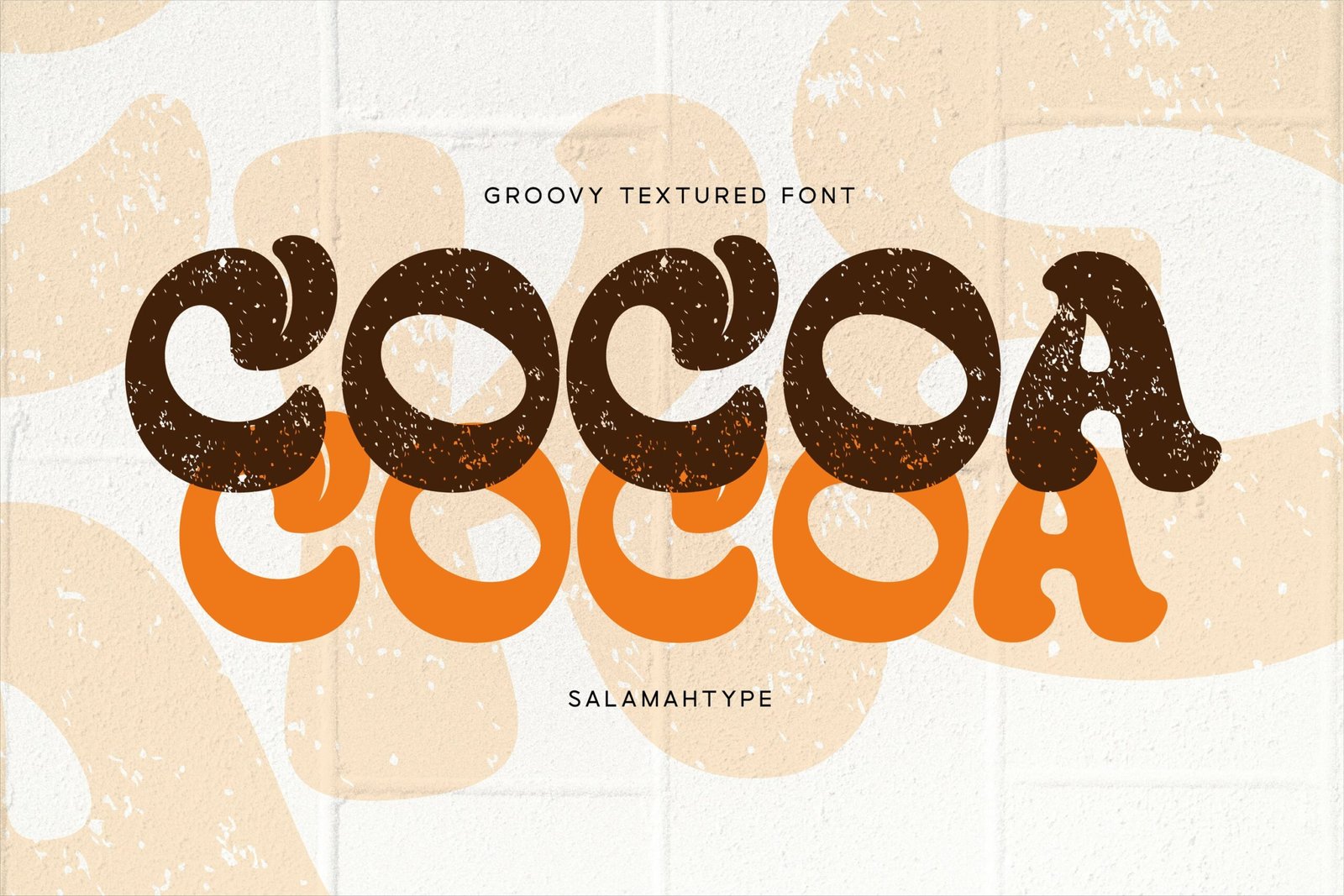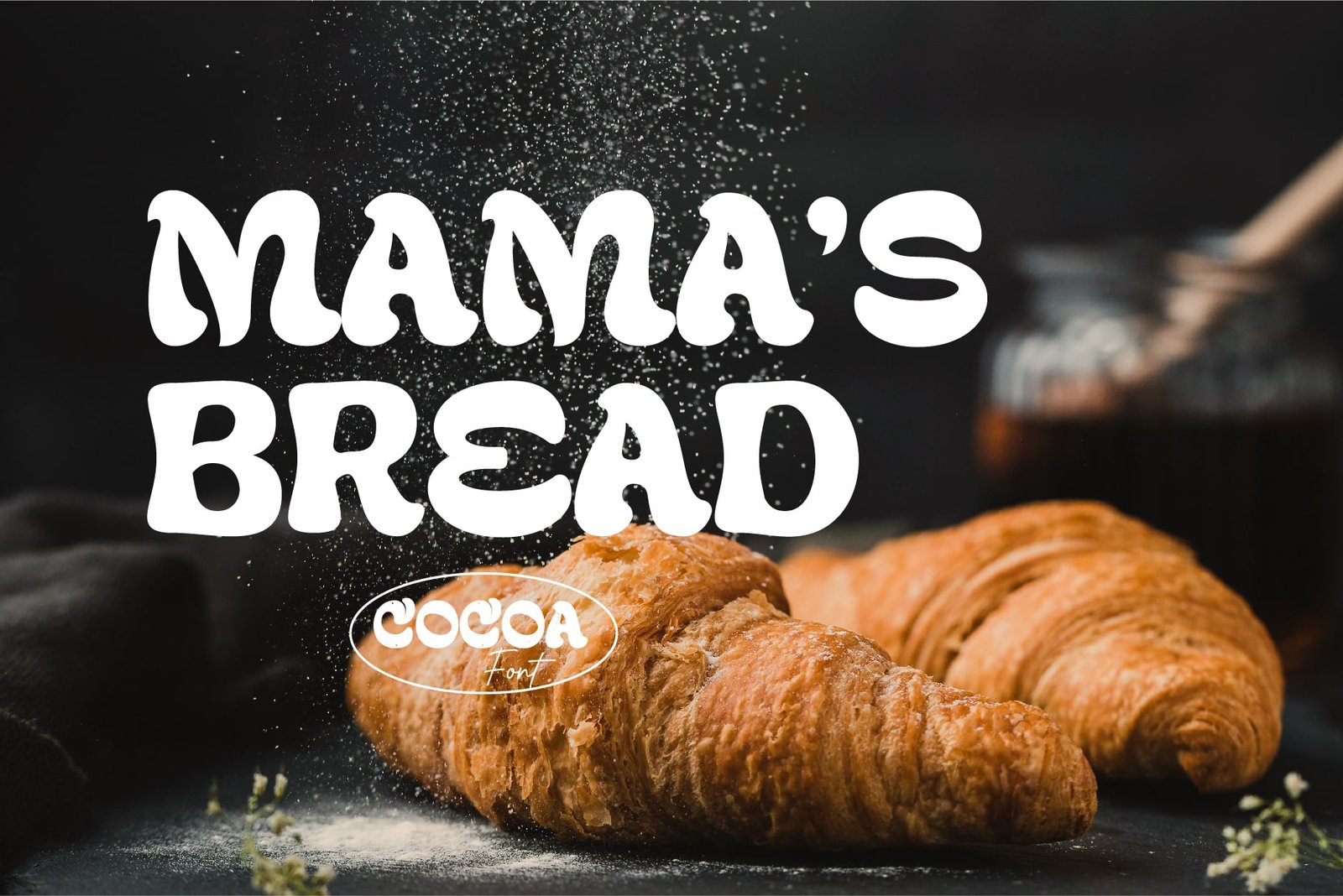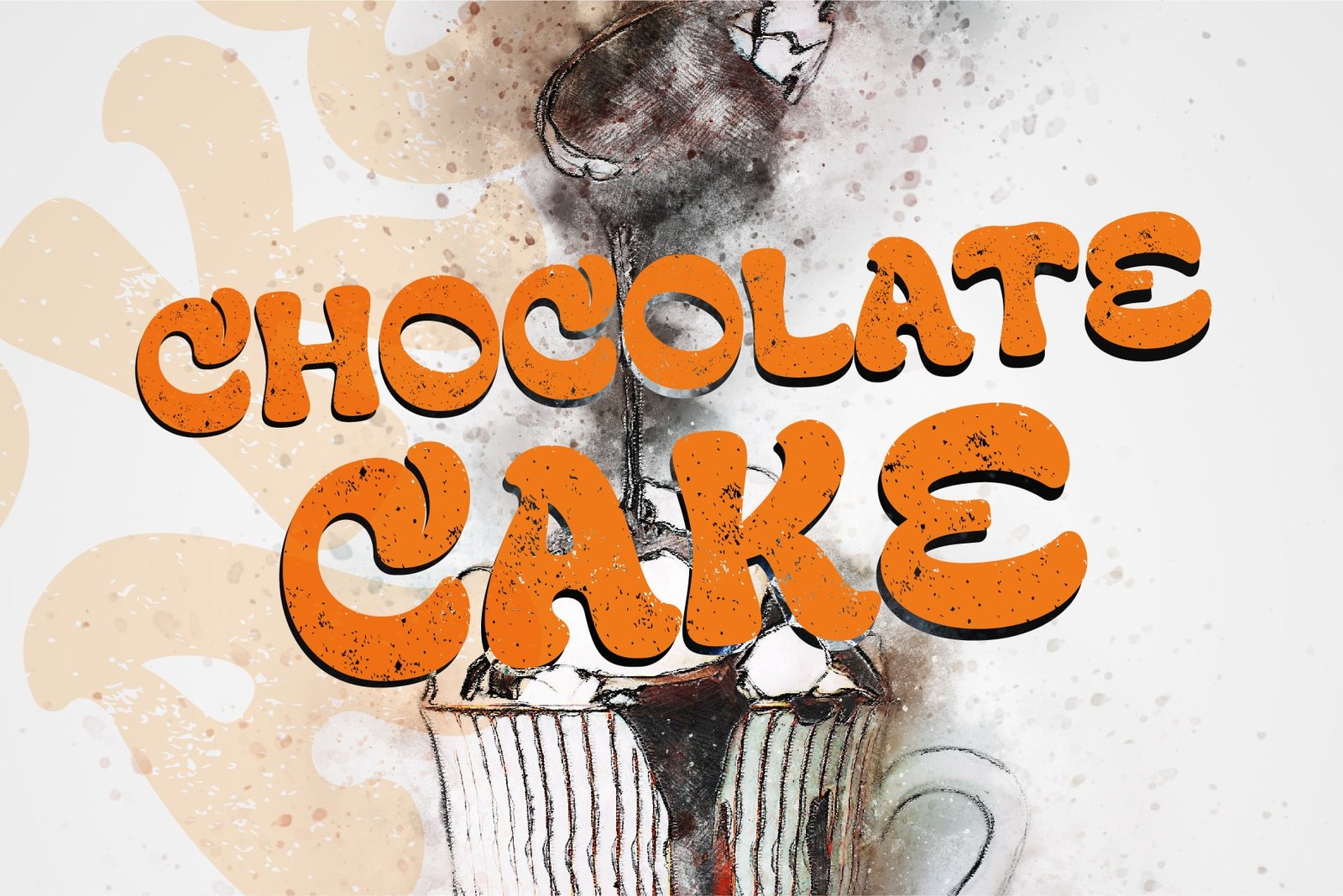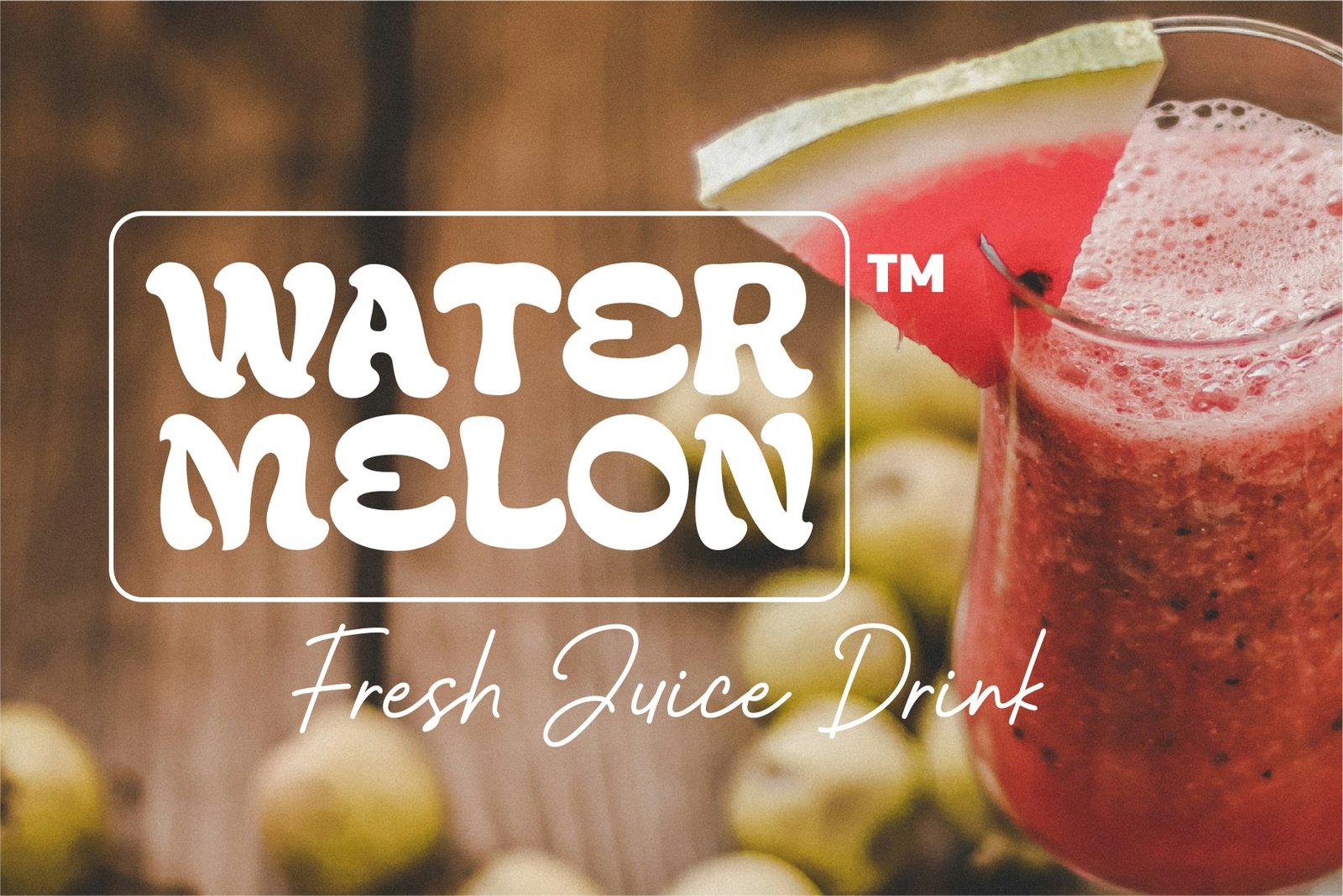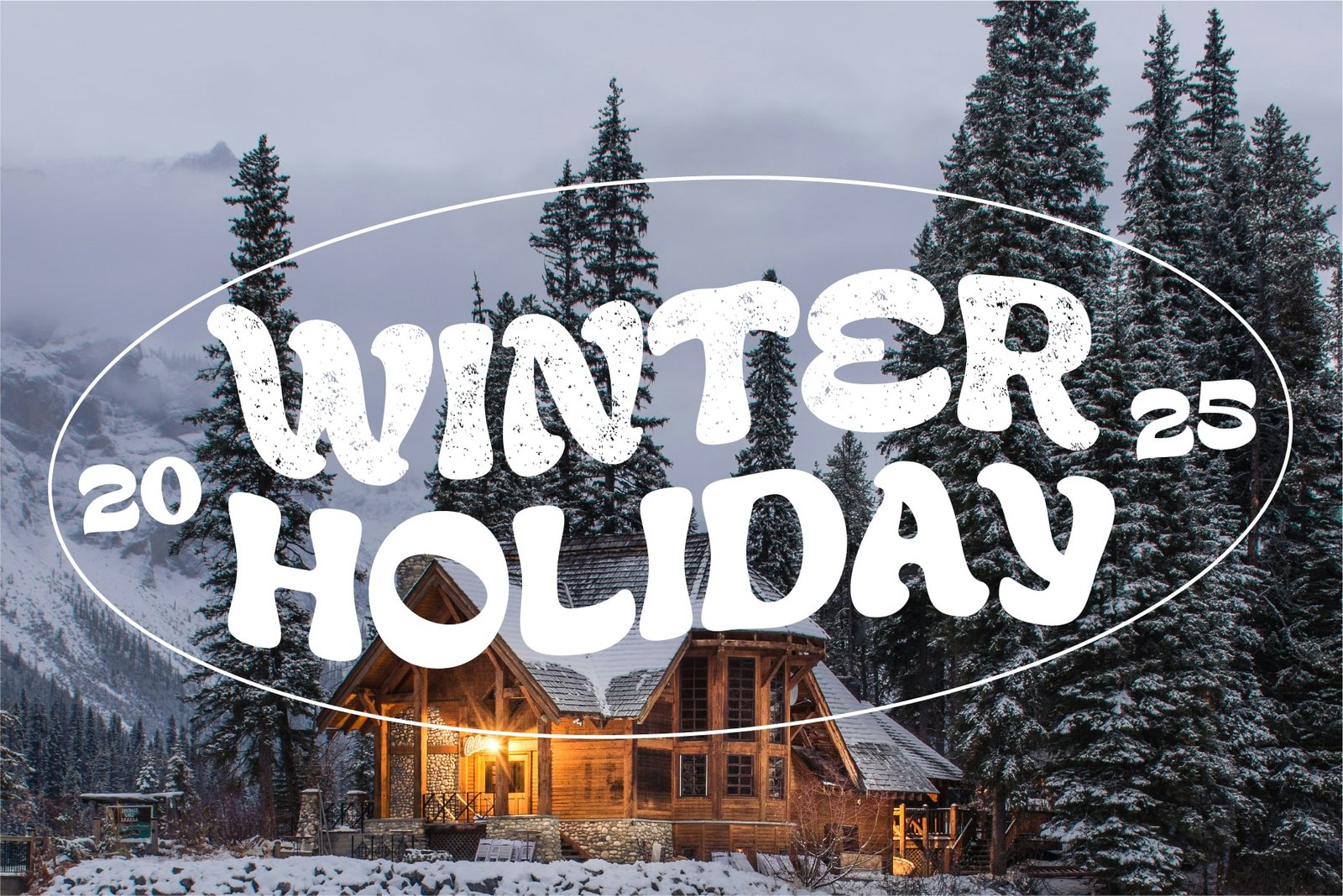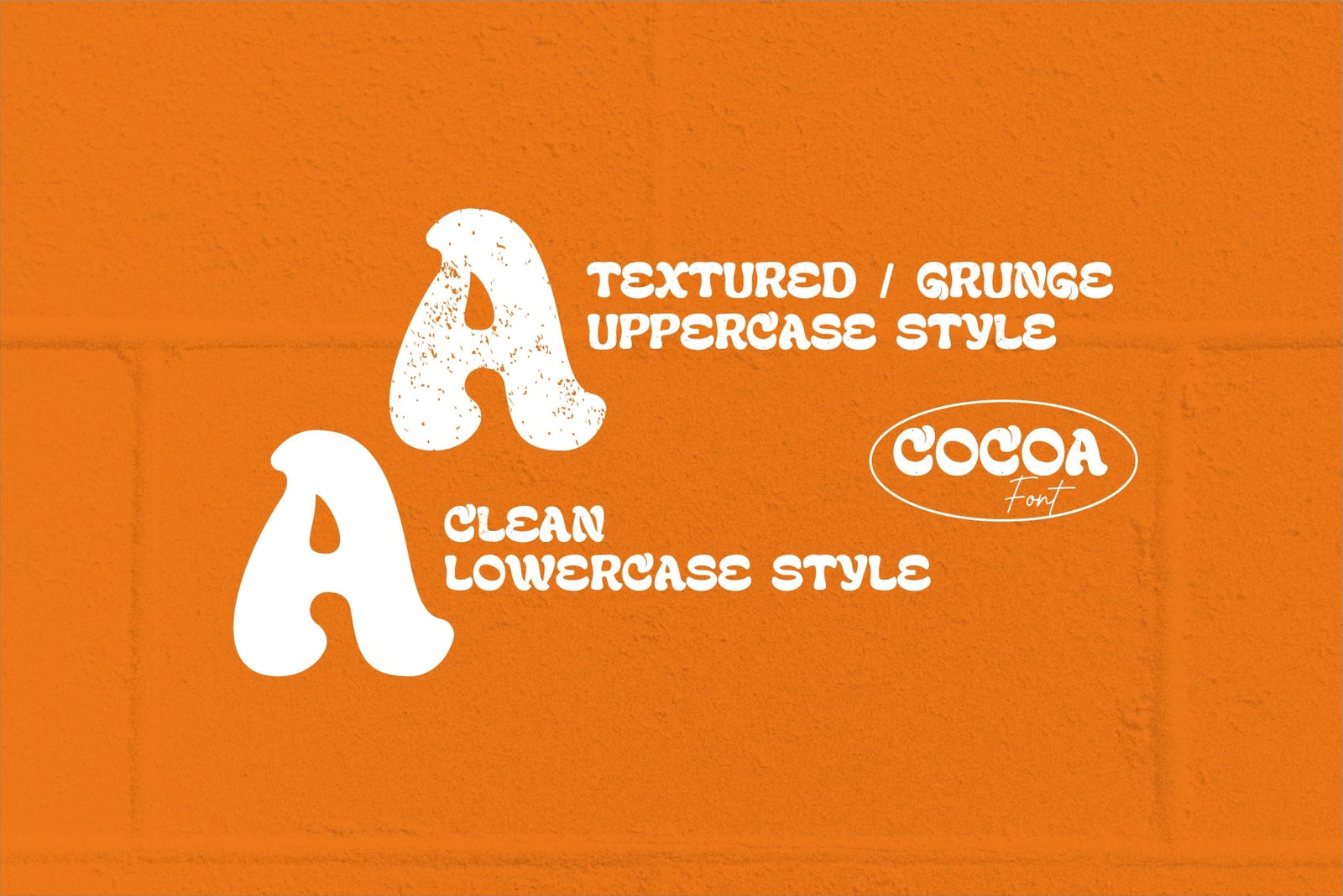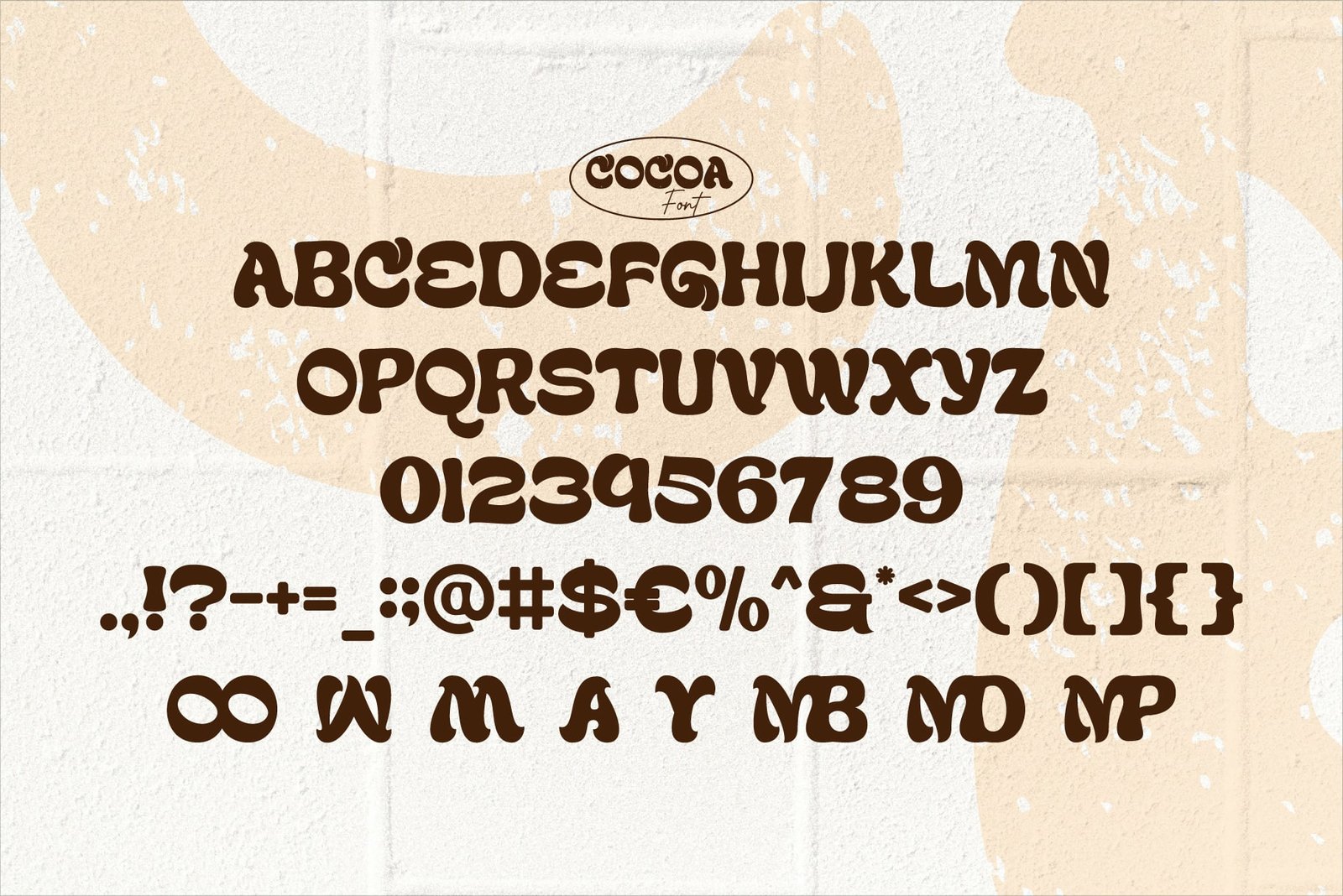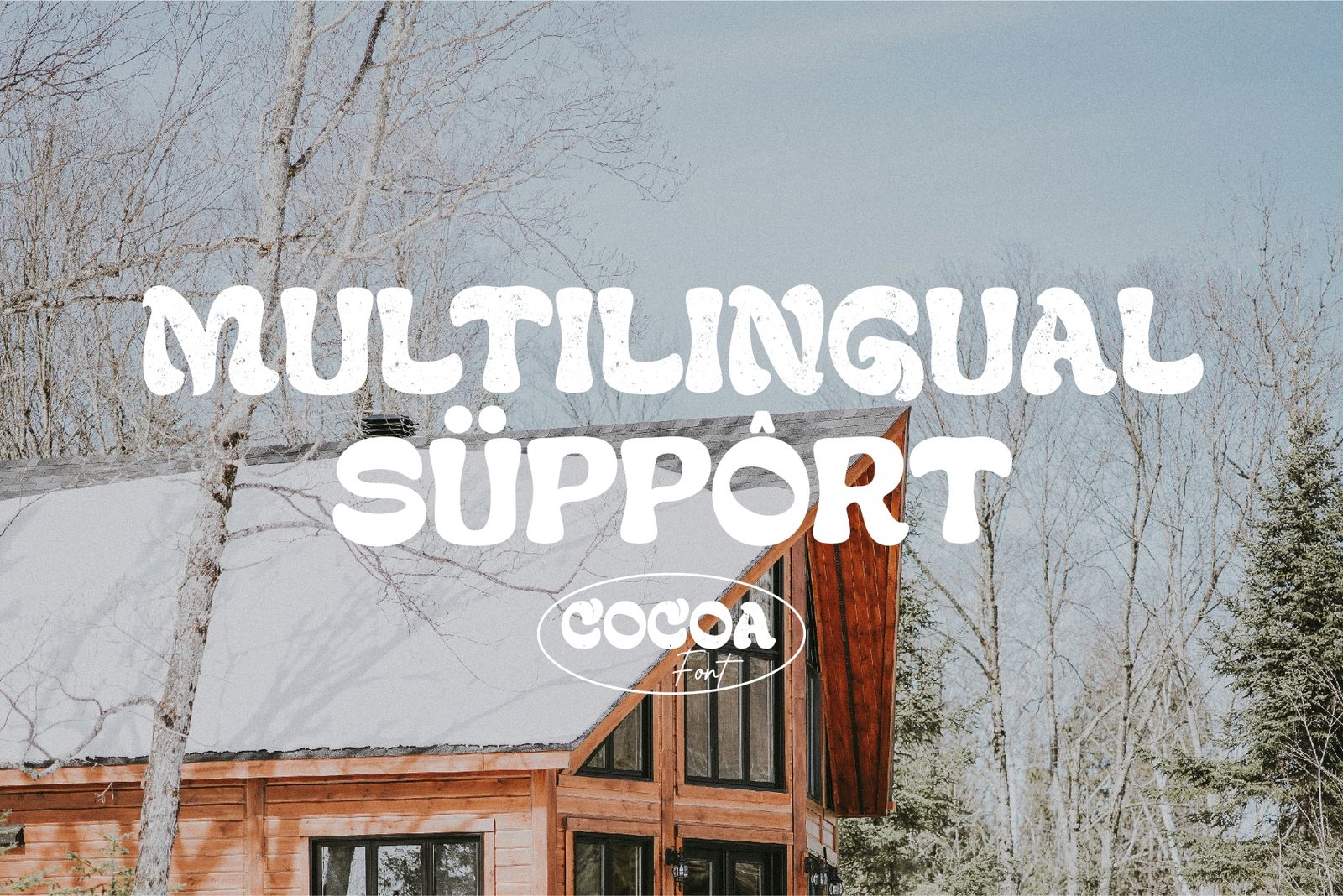
- Uppercase - All Caps Grunge Style
- Lowercase - All Caps Clean Style
- Numbers and Symbols
- Alternates
- Multilingual Support
Cocoa - Groovy Font
Introducing Cocoa, a fun and groovy font with cute shapes, perfect for branding food, drinks, and restaurants. With support for multiple languages and some cool alternates, Cocoa brings a fresh, playful vibe to any design.Features :